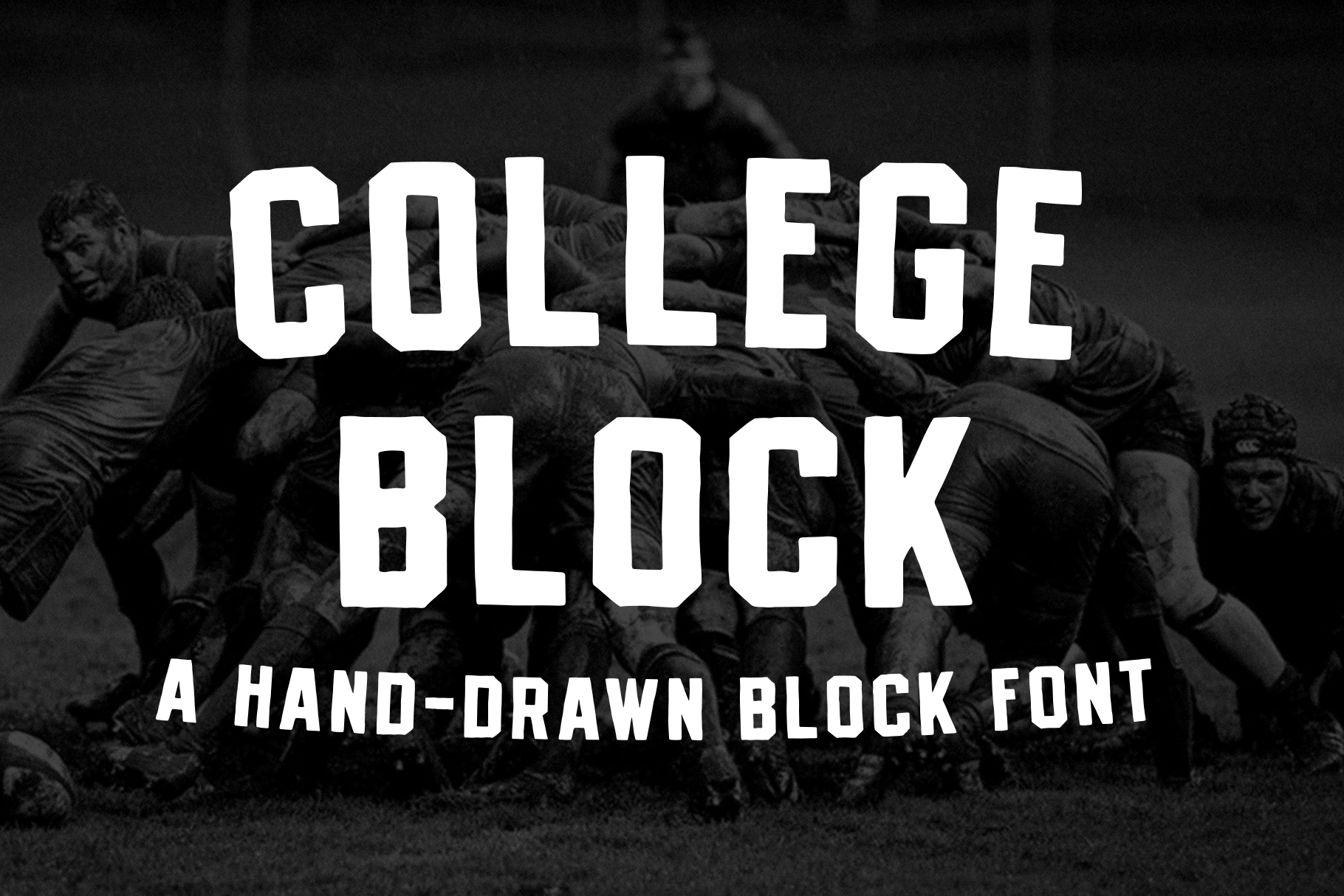
COLLEGE BLOCK—A Vintage Block Font
College Block — A Vintage Athletic Block Font
College Block includes two font styles that offer the perfect vintage athletic look to any design. Each version is hand-crafted with many hours of research to give you the most authentic look. The application options are endless!
- College Block Regular
- College Block Stencil
- Full Number Set
- Basic Glyph Set